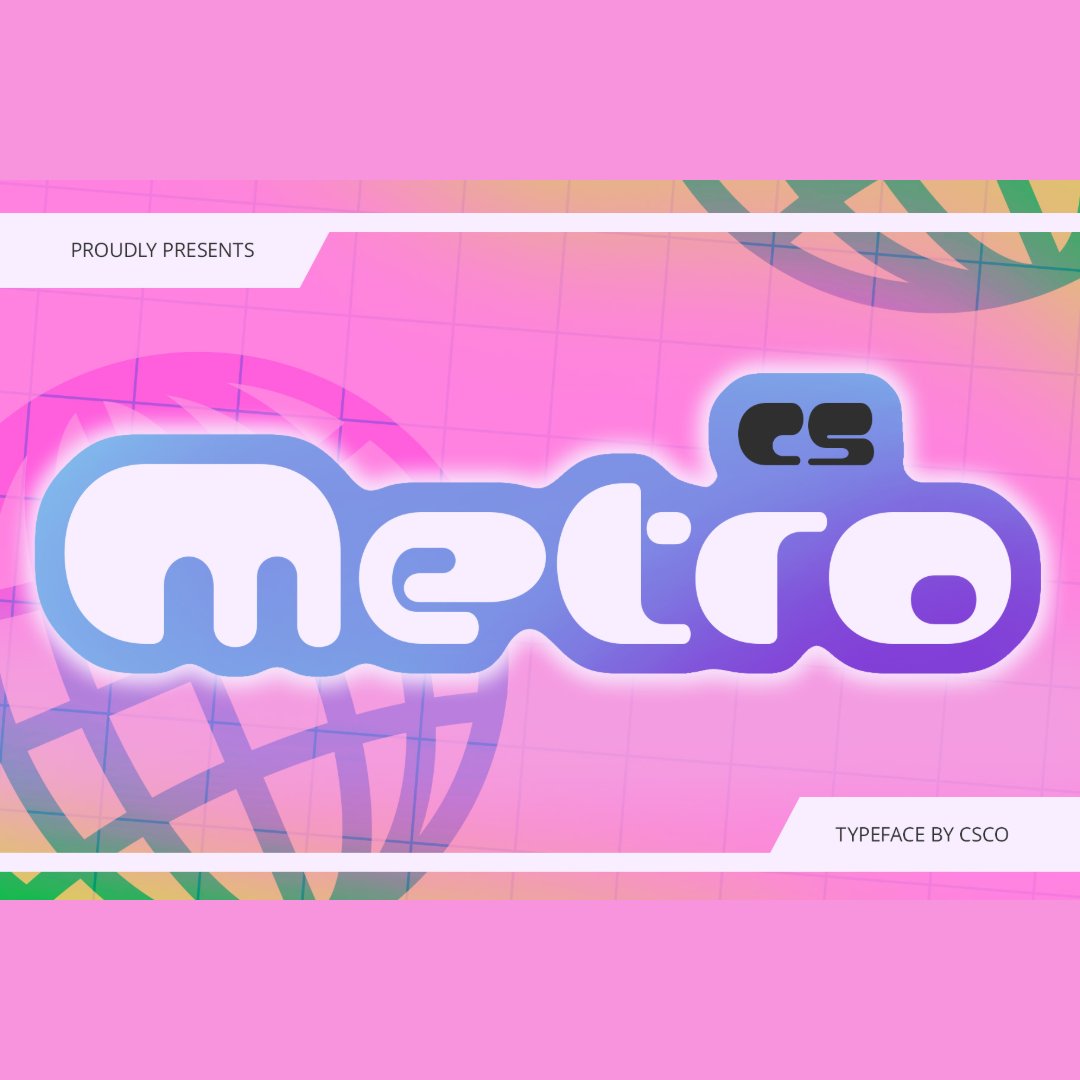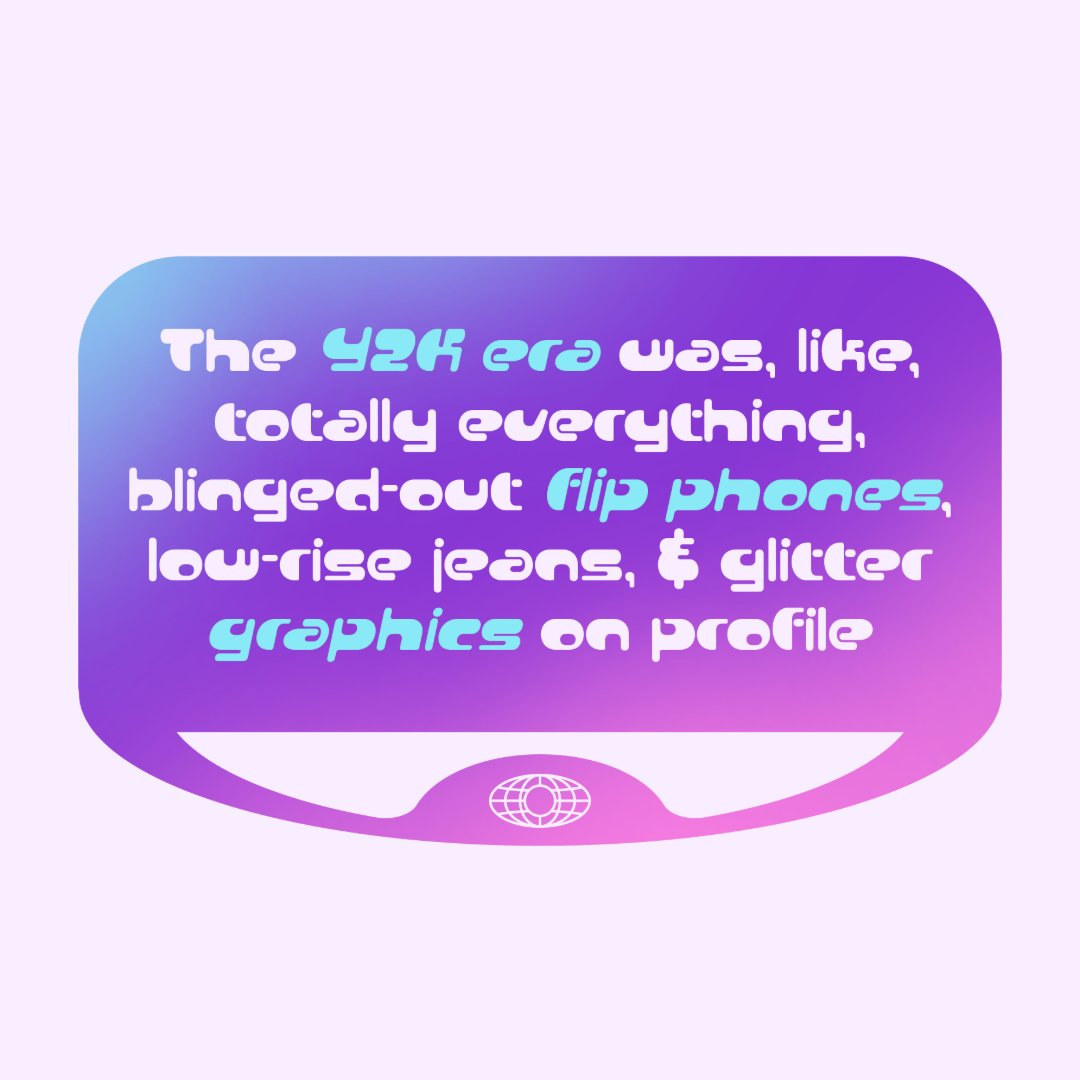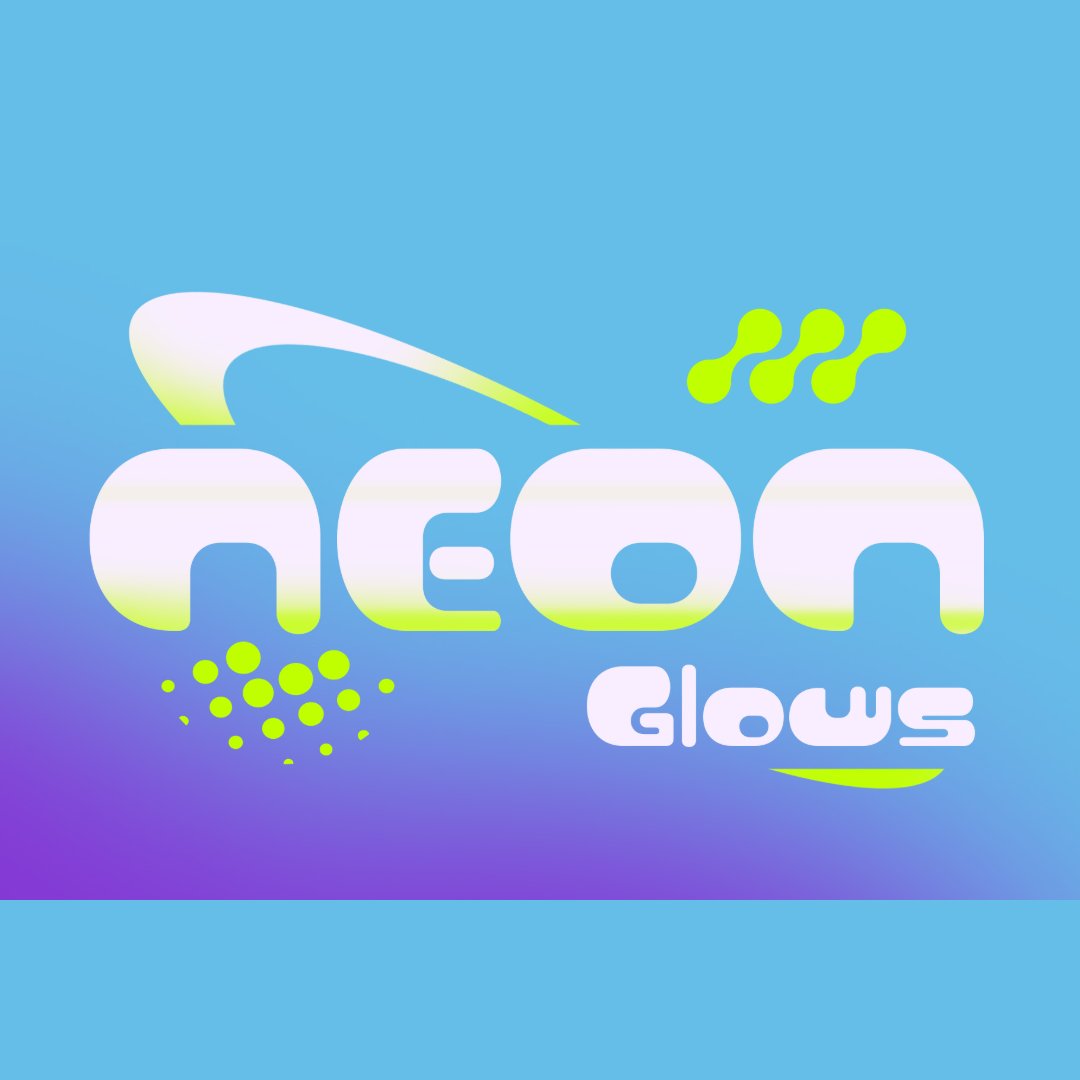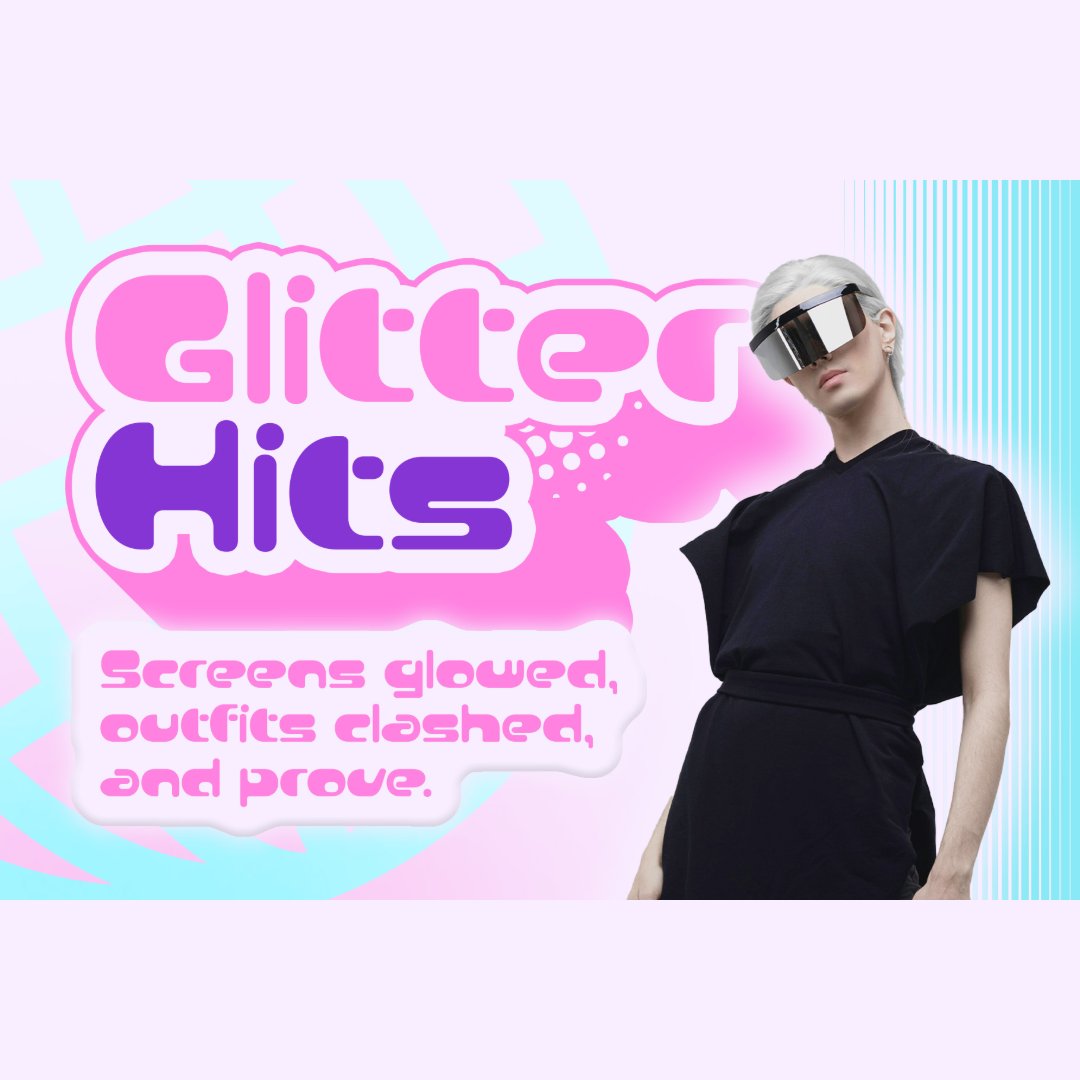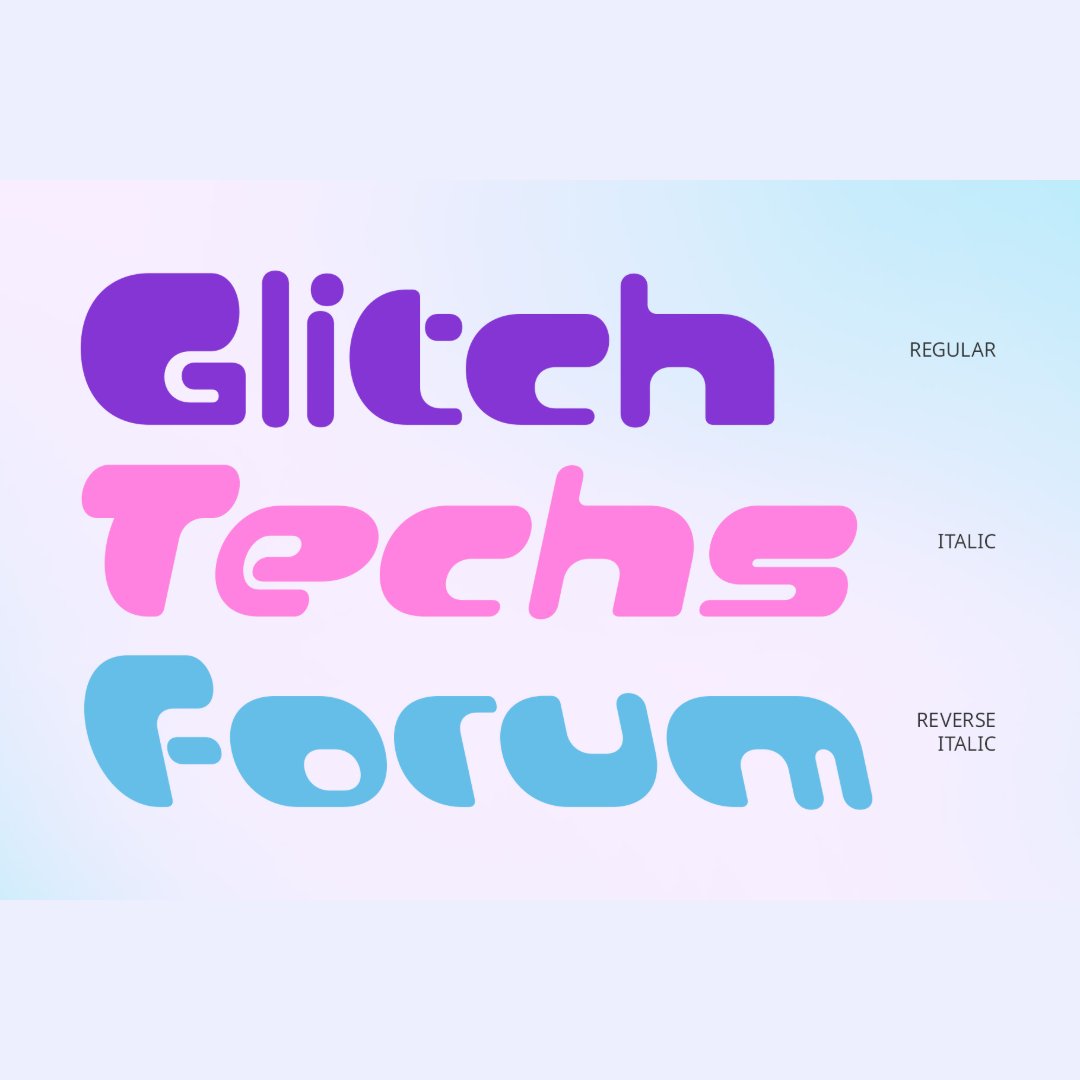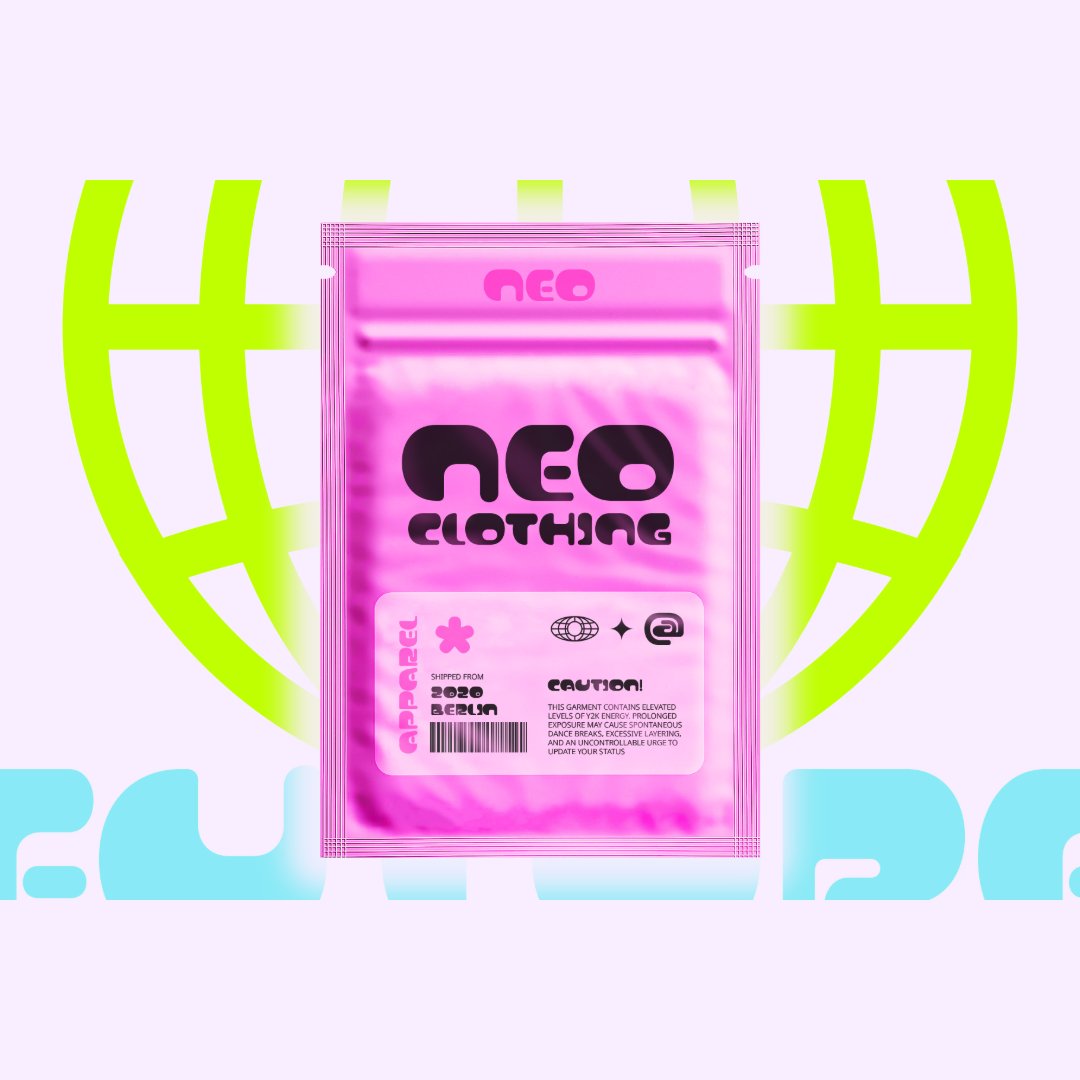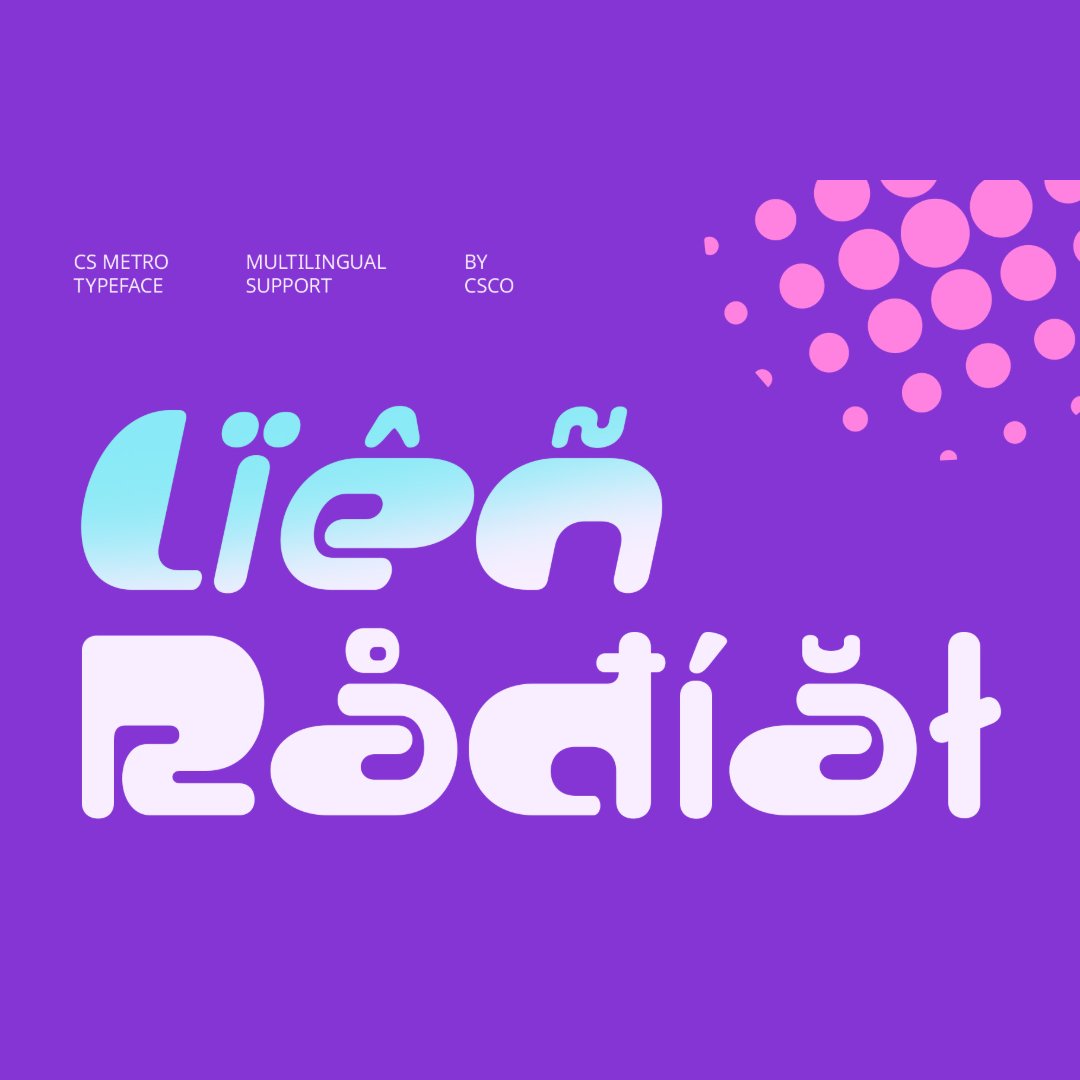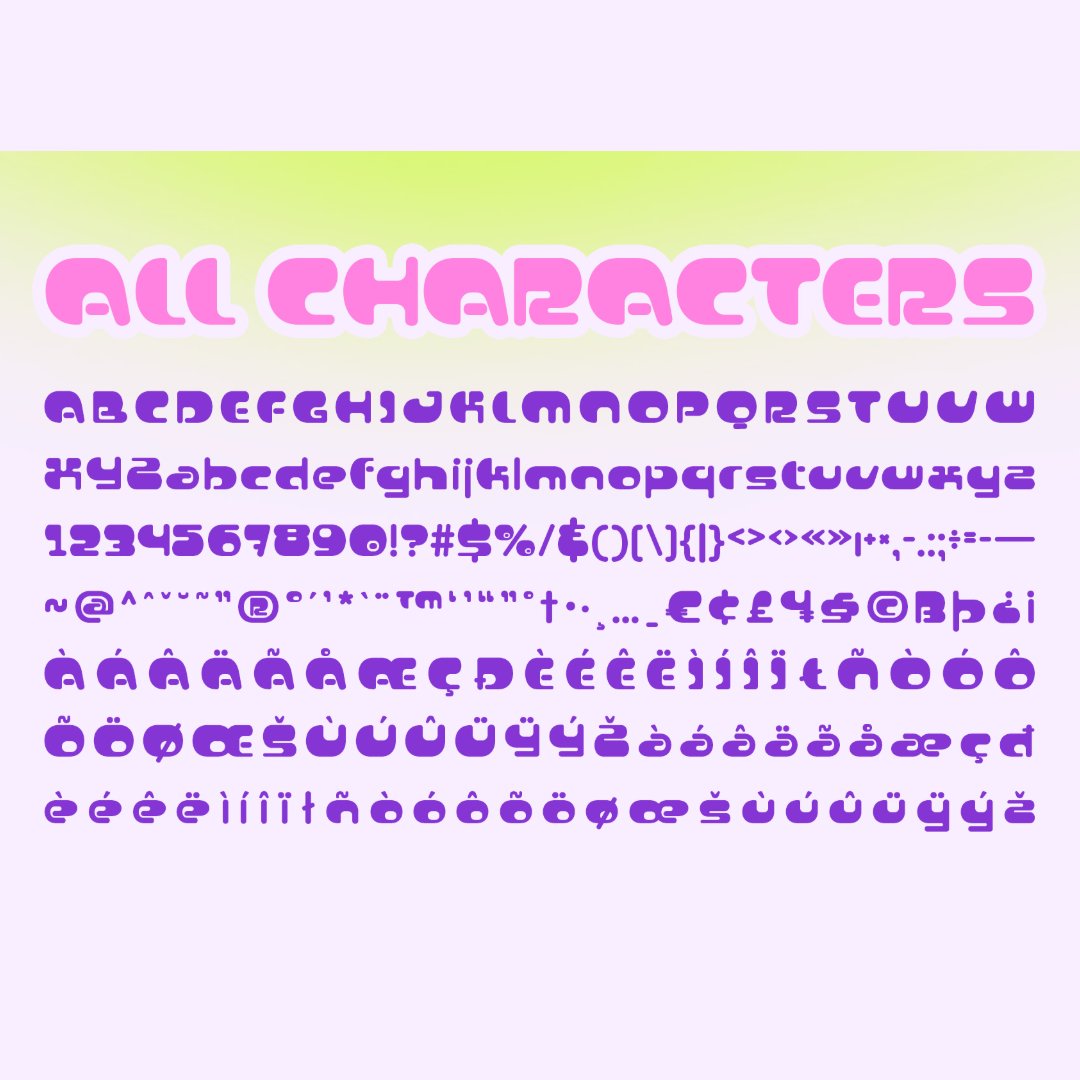
CS Metro – Y2K Font
CS Metro – Y2K Font with Pop-Futuristic Vibes
Playful Bubble Shapes with Bold Personality
CS Metro is a bold display font inspired by the Y2K aesthetic, bringing together bubbly curves, chunky letterforms, and funky energy. Its rounded and plump shapes evoke a sense of fun, optimism, and digital nostalgia—perfect for making a bold statement in any modern design.
Retro-Futuristic Aesthetic with a Y2K Twist
Channeling the spirit of the early 2000s, CS Metro blends pop culture, tech-inspired styling, and retro charm into one cohesive typeface. The playful geometry and softened edges reflect a time of futuristic dreams, digital exploration, and creative expression—ideal for brands and projects aiming to tap into that iconic era.
Perfect for Expressive and Eye-Catching Design
Whether you’re working on posters, fashion branding, music visuals, or editorial layouts, CS Metro adds a vibrant and expressive layer to your design. Its funky form draws attention instantly, making it ideal for headlines, logo design, and anything that calls for a loud, joyful personality.
Versatile for Nostalgia-Driven Creativity
With its balance of boldness and friendliness, CS Metro is more than just a novelty font—it’s a versatile tool for creatives looking to infuse their work with retro-futuristic attitude and stylish uniqueness. Use it where fun, fashion, and flash meet.
CS Metro Regular
CS Metro Italic
CS Metro Reverse Italic
CS Metro – Y2K Font is a bold display typeface inspired by the Y2K aesthetic, featuring playful bubble shapes and chunky letterforms. It includes three styles: Regular, Italic, and Reverse Italic, making it a versatile choice for various design projects.